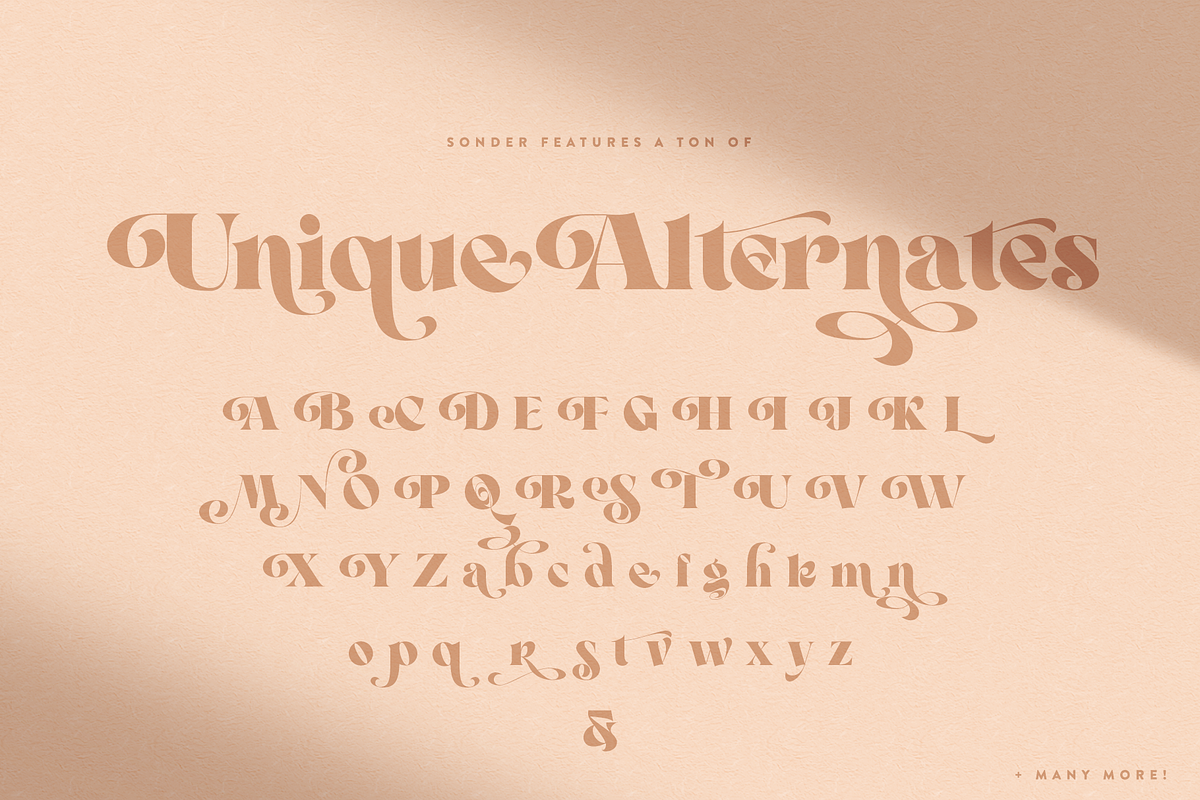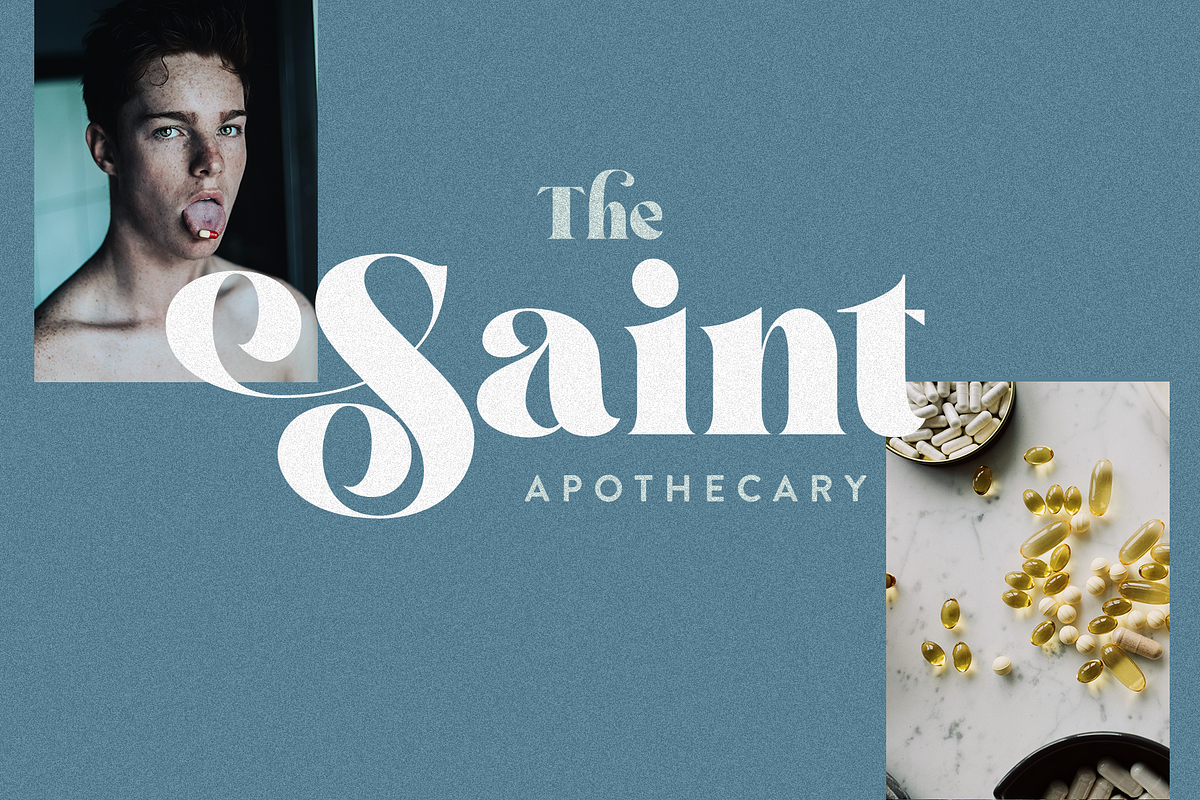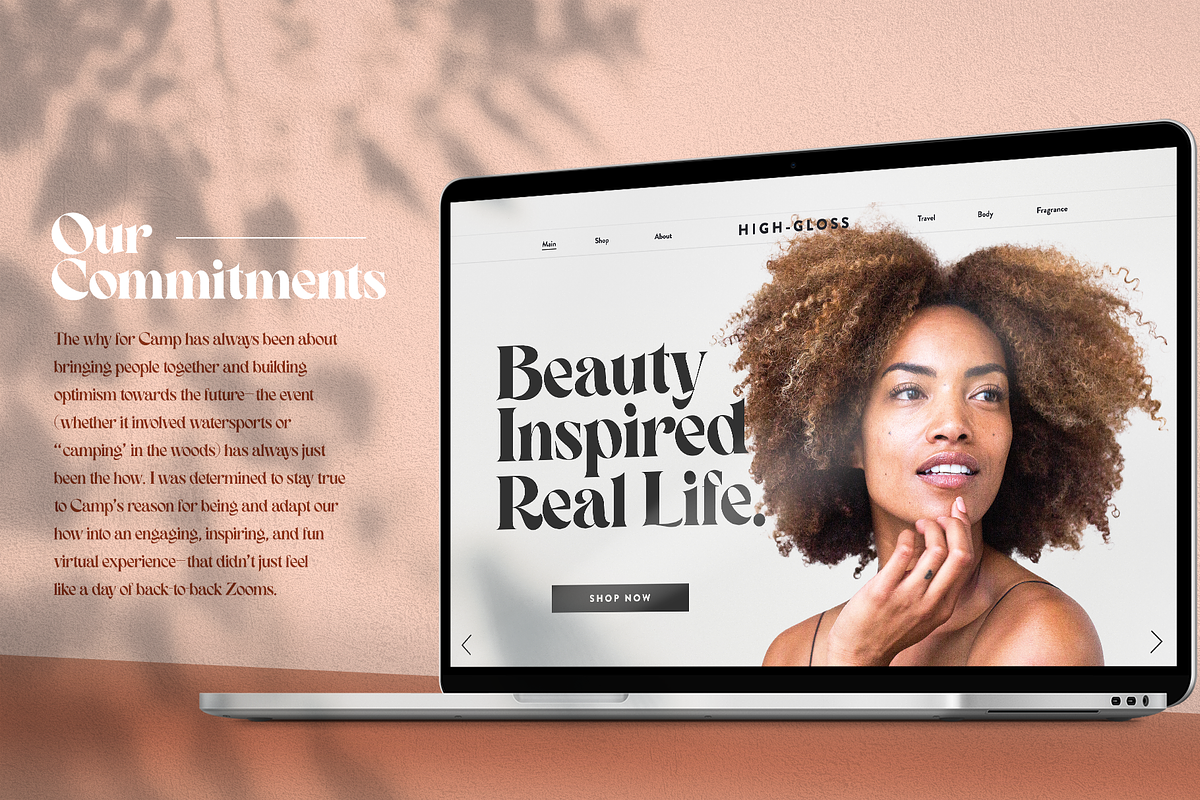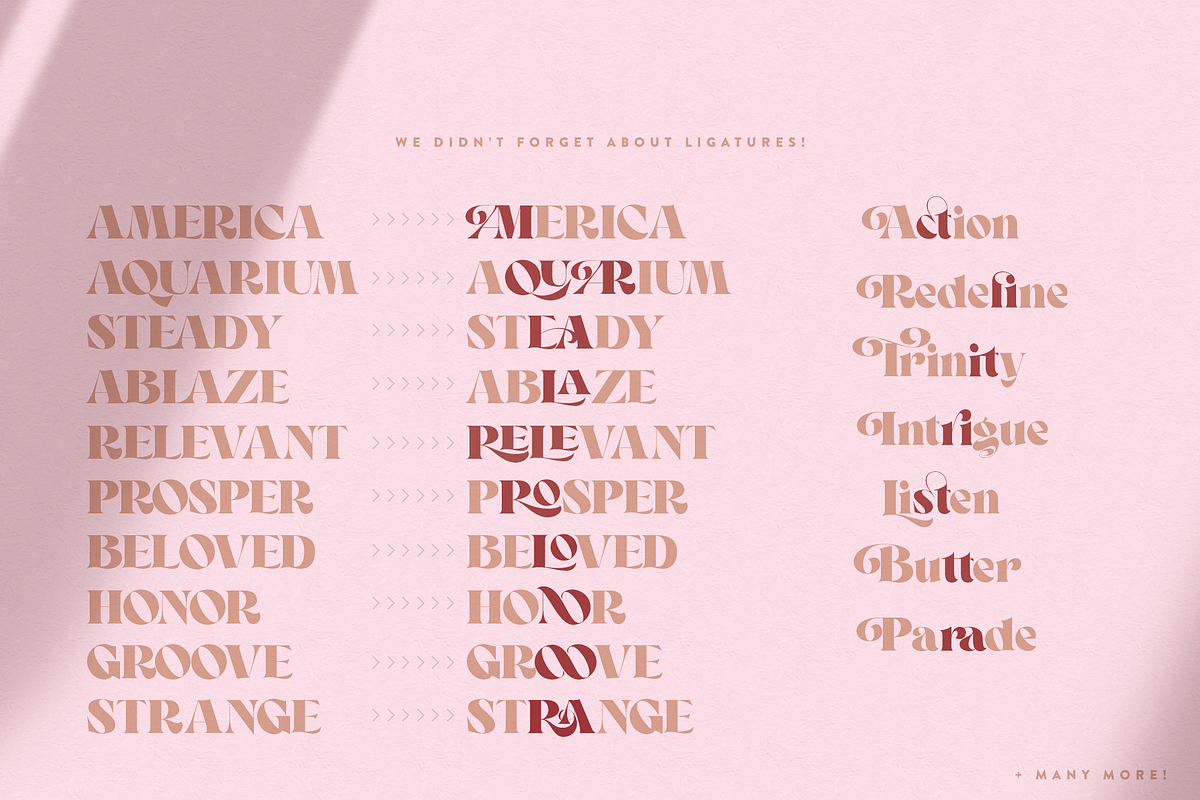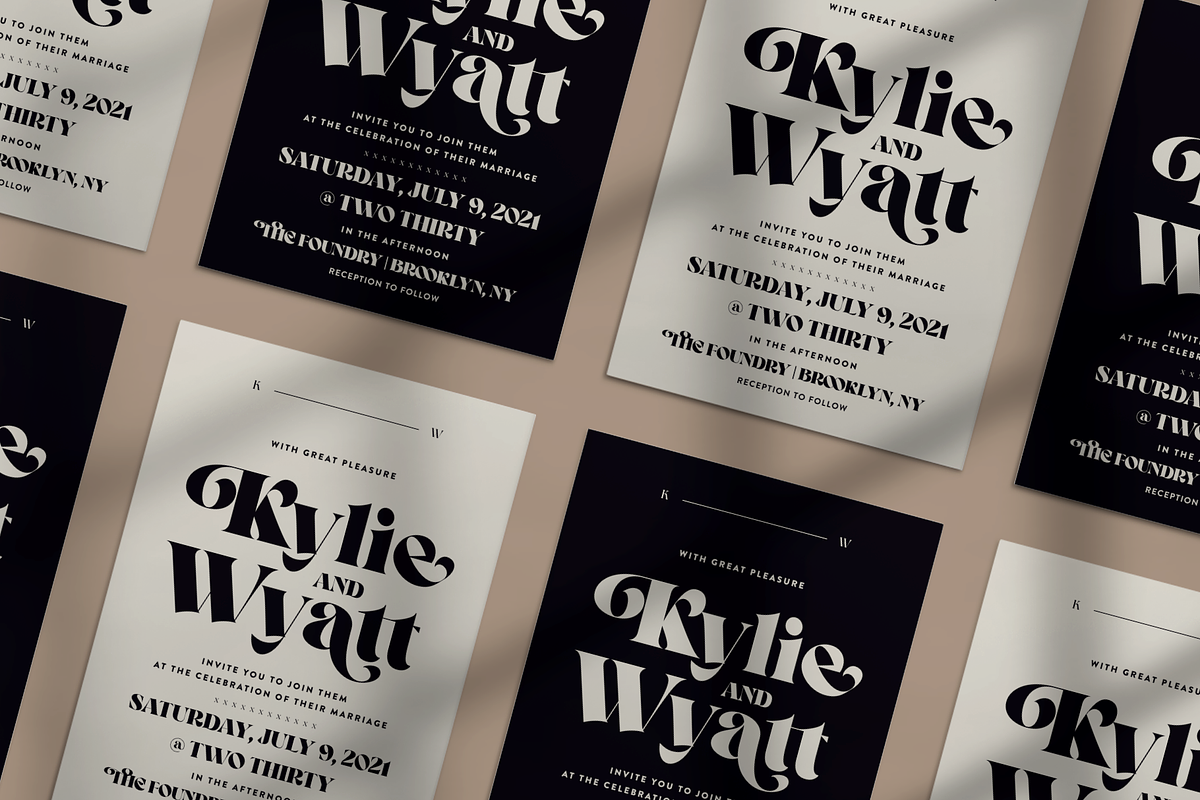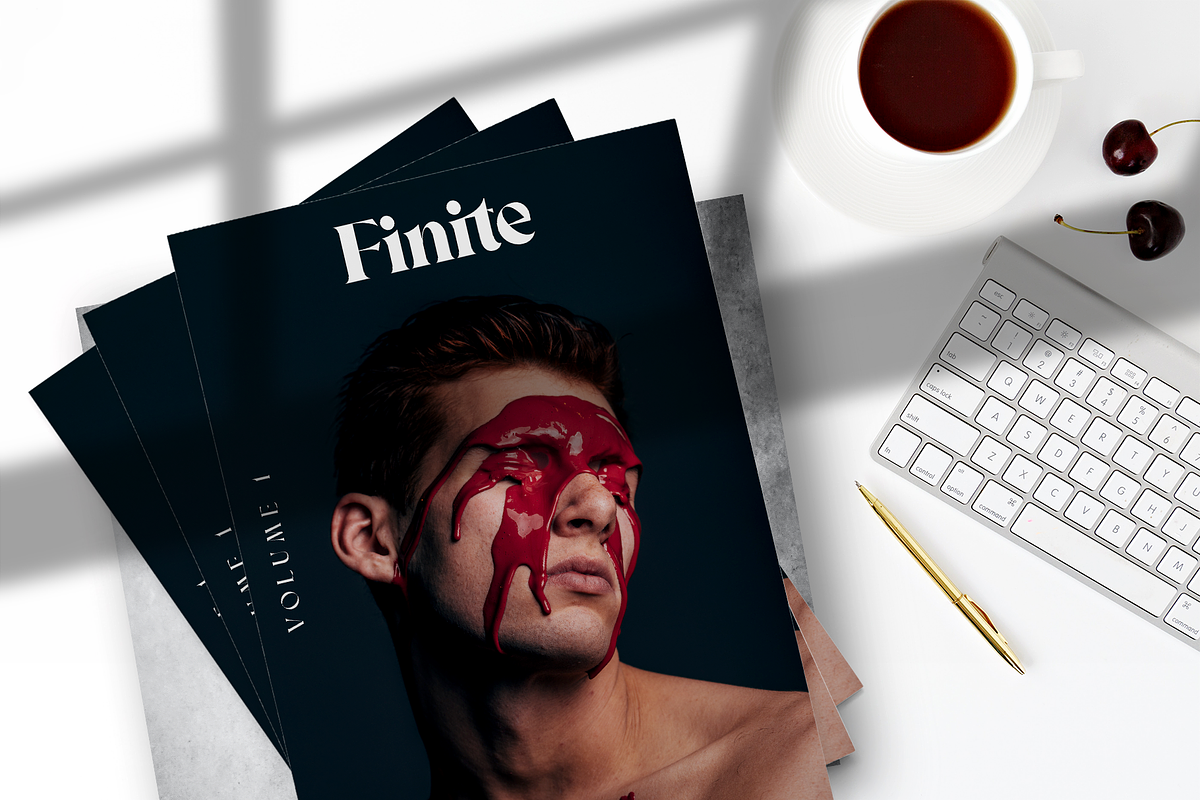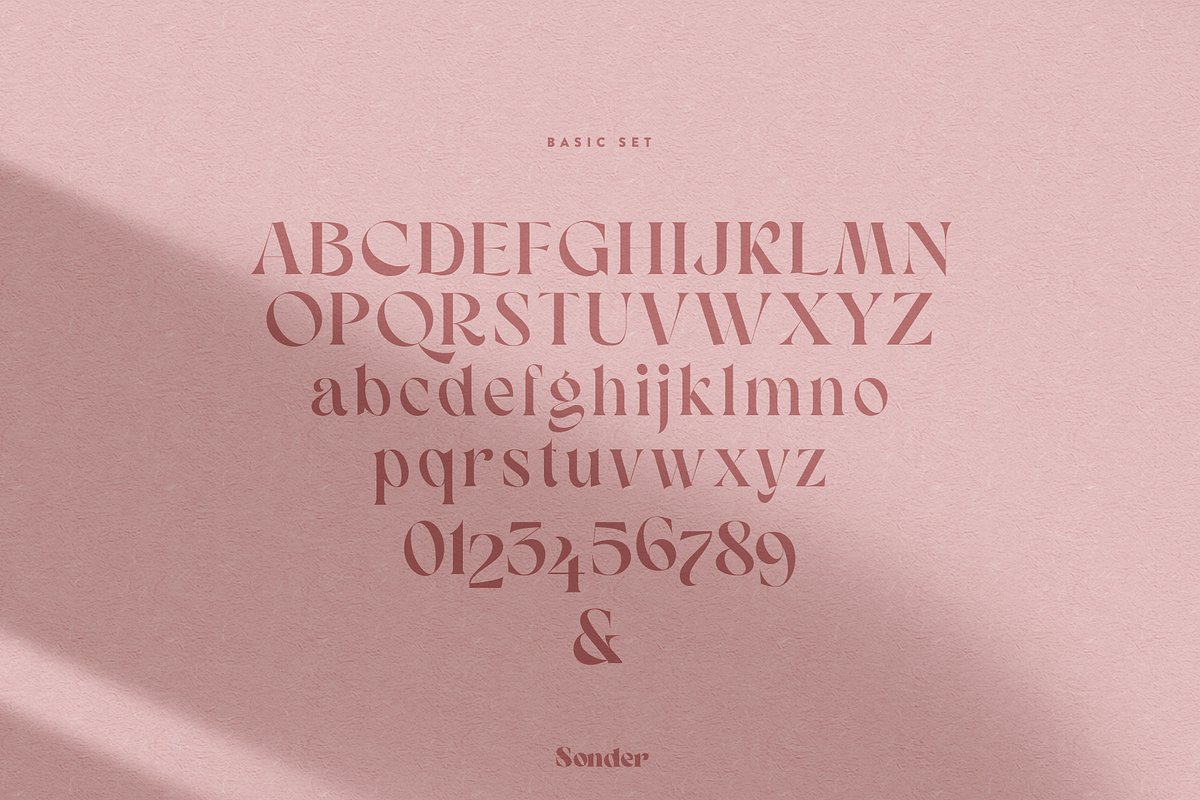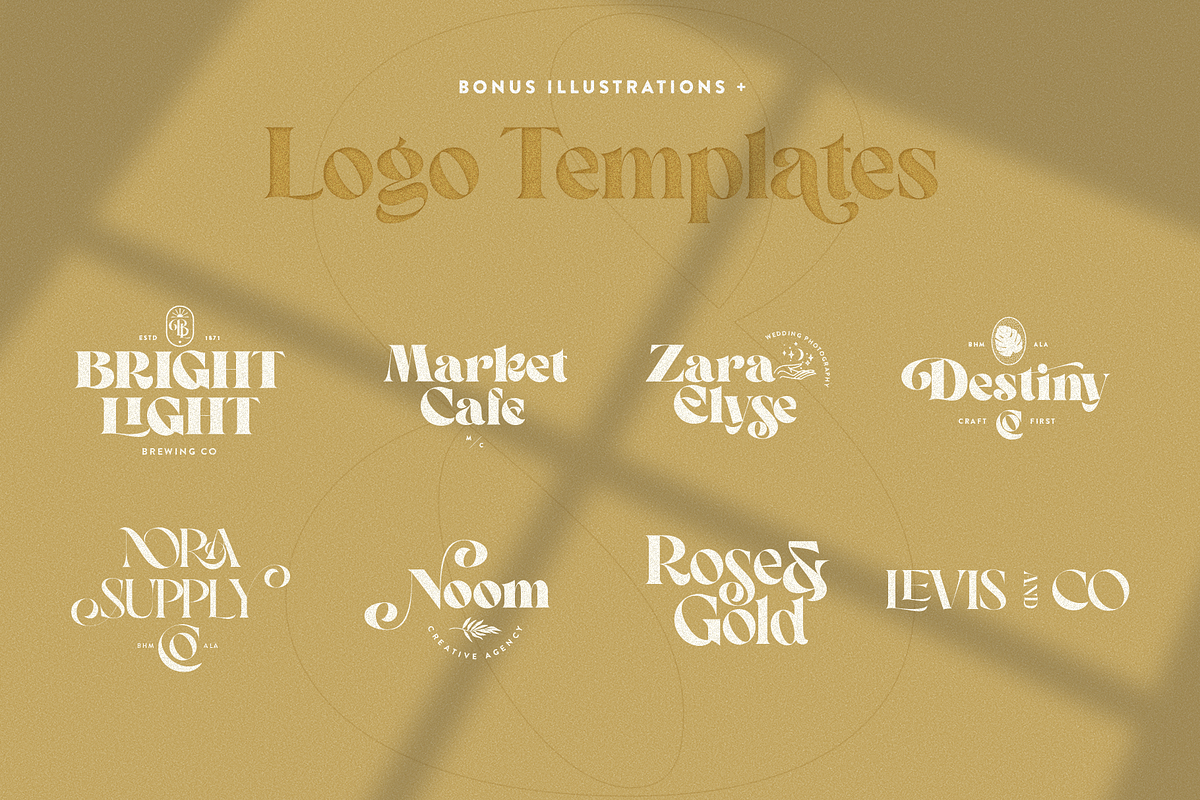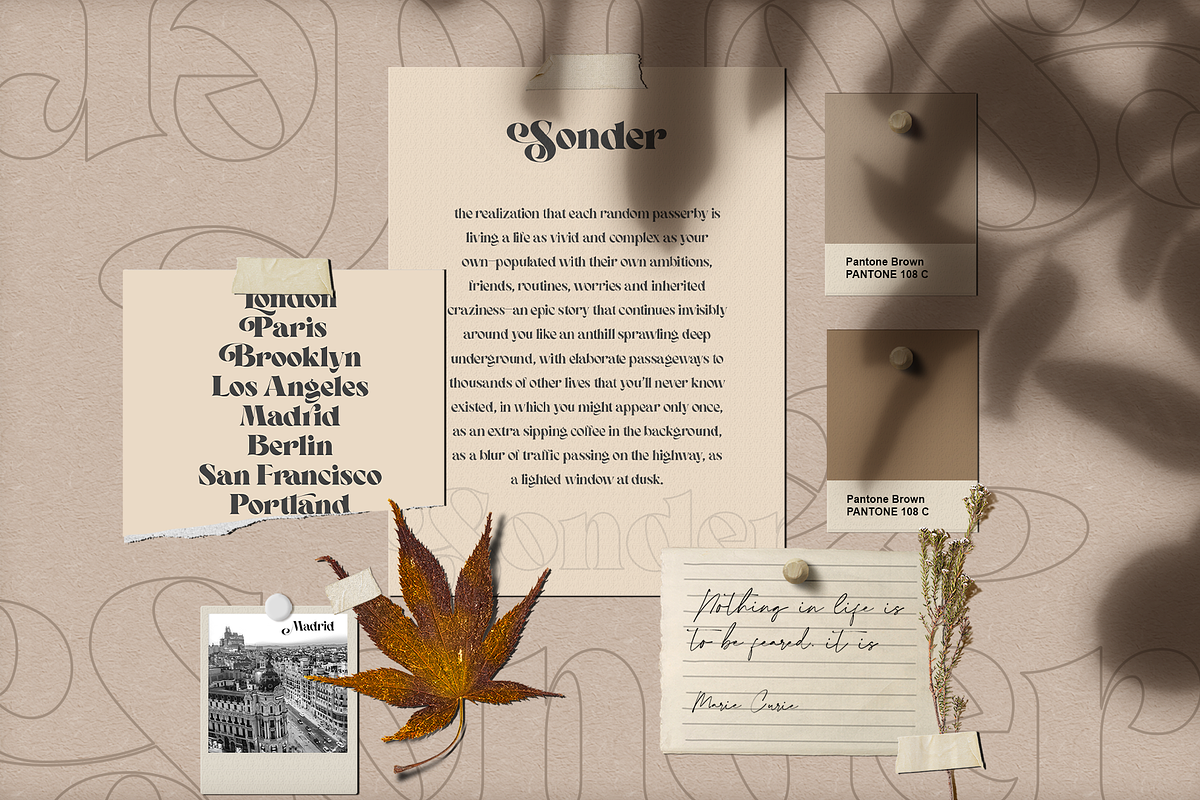
Sonder - Beautiful Serif Typeface
Introducing Sonder, our first serif family!
Featuring 5 weights making it super versatile for almost any project! I started creating this at the beginning of quarantine and just recently finished up! Sonder is inspired by timeless packaging from a forgotten era. It has a beautiful range of stylistic alternates with unique characters making it a powerhouse for logos, headlines, posters, shirts, you name it! More ligatures/alternates on the way in the coming weeks/months!
- 109 Alternates + 27 Ligatures
Sonder - the realization that each random passerby is living a life as vivid and complex as your own—populated with their own ambitions, friends, routines, worries and inherited craziness—an epic story that continues invisibly around you like an anthill sprawling deep underground, with elaborate passageways to thousands of other lives that you’ll never know existed, in which you might appear only once, as an extra sipping coffee in the background, as a blur of traffic passing on the highway, as a lighted window at dusk.